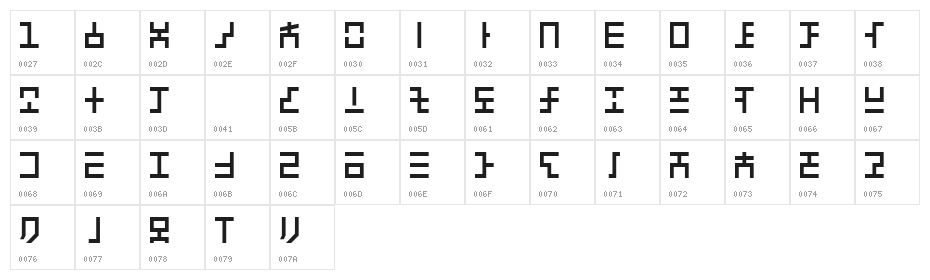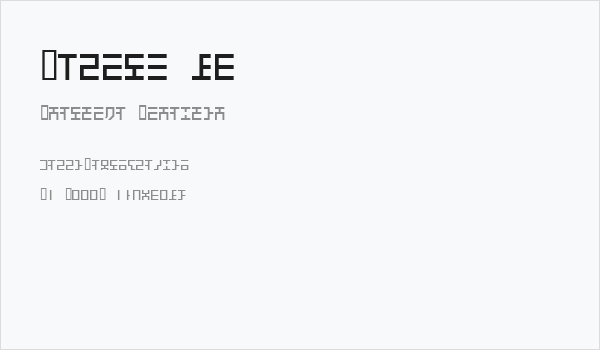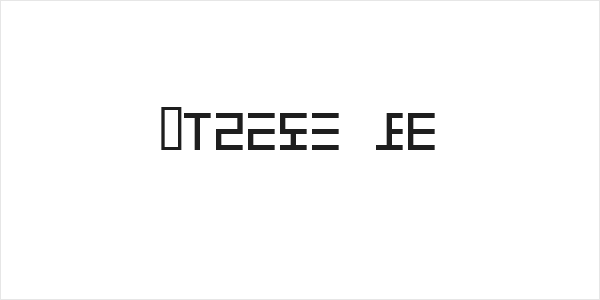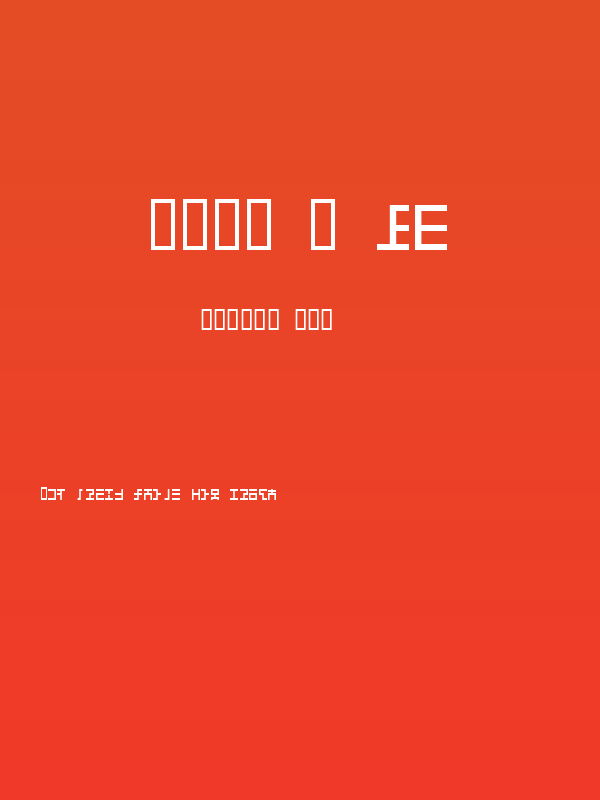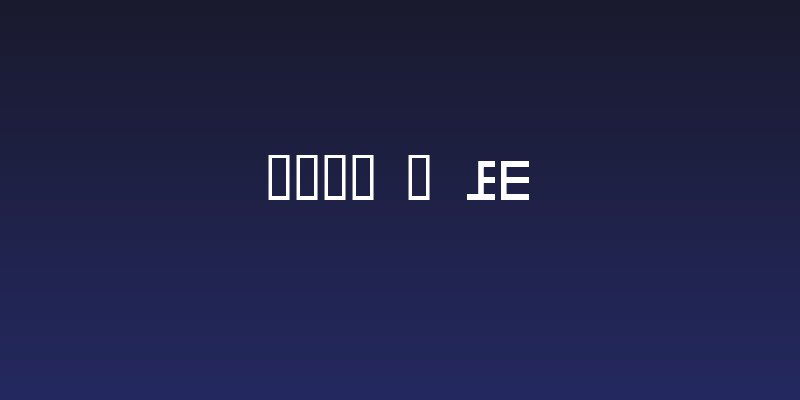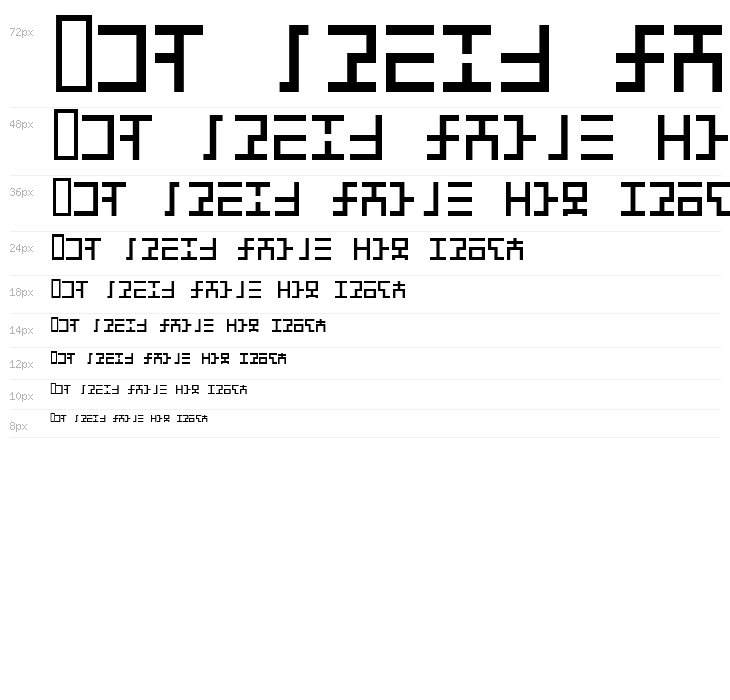
Hylian 64 Font
Hylian 64 Description
This font features a unique, geometric design reminiscent of ancient scripts, with a modern twist. The characters are constructed with bold, straight lines and sharp angles, creating a futuristic and digital aesthetic. Each letter is distinct, with a uniform height and width, contributing to a monospaced appearance. The font's style is highly decorative, making it ideal for creative projects that require a touch of fantasy or science fiction. The characters are evenly spaced, ensuring readability while maintaining the font's distinctive style.
| Overall Style | Futuristic, Decorative |
| Proposed Projects | Ideal for video game design, fantasy-themed posters, sci-fi book covers, and digital artwork. |